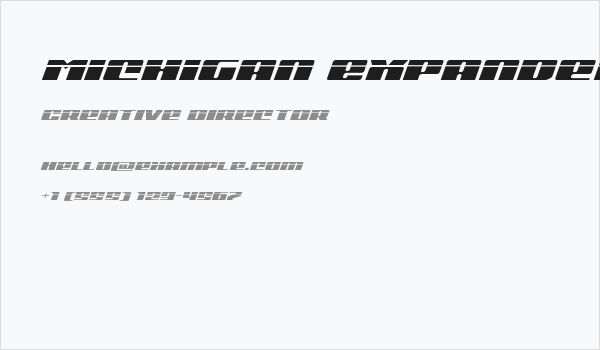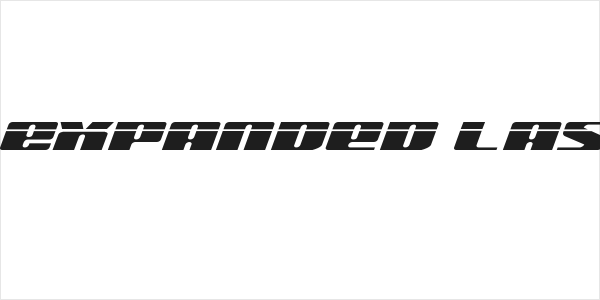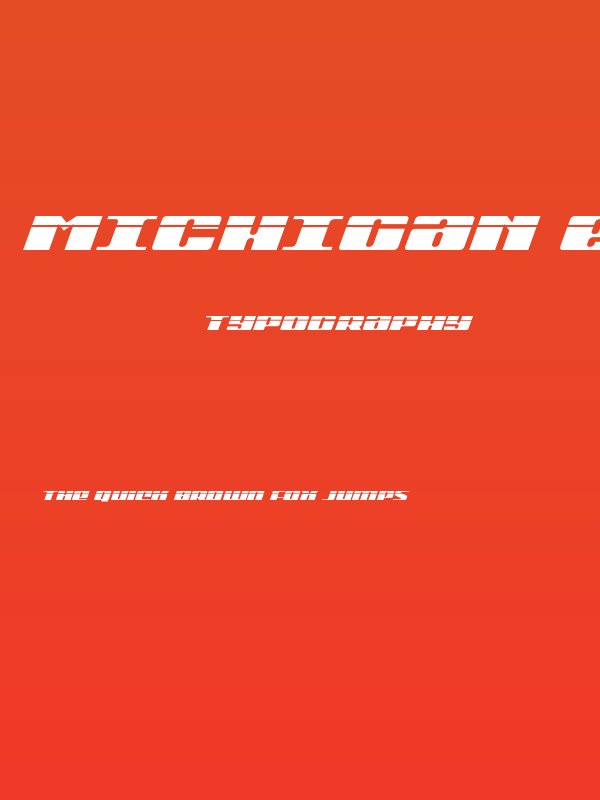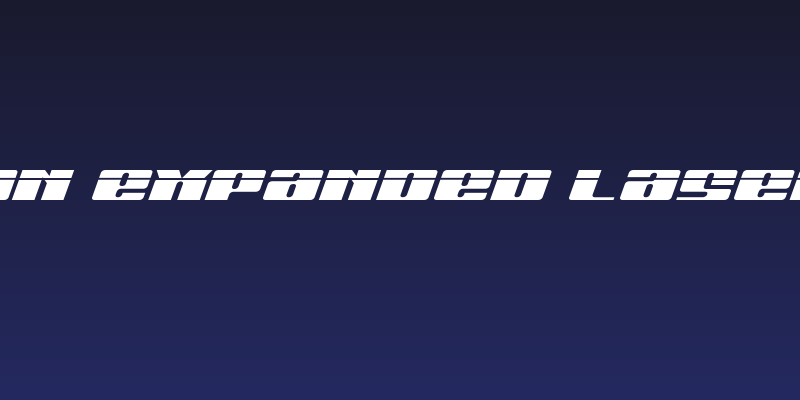
Michigan Expanded Laser Italic Font
Michigan Expanded Laser Italic Description
This font features a bold, futuristic design with an expanded width and italic slant. The characters are constructed with sharp, angular edges and a distinct geometric style, giving it a modern and dynamic appearance. The uppercase and lowercase letters maintain a consistent style, with a strong emphasis on horizontal lines and a slight forward tilt, enhancing its speed-inspired look. The numbers and special characters follow the same design principles, ensuring uniformity across all glyphs. This font is ideal for projects that require a sense of motion and modernity.
| Proposed Projects | Ideal for technology branding, sports team logos, automotive advertisements, and sci-fi themed designs. |